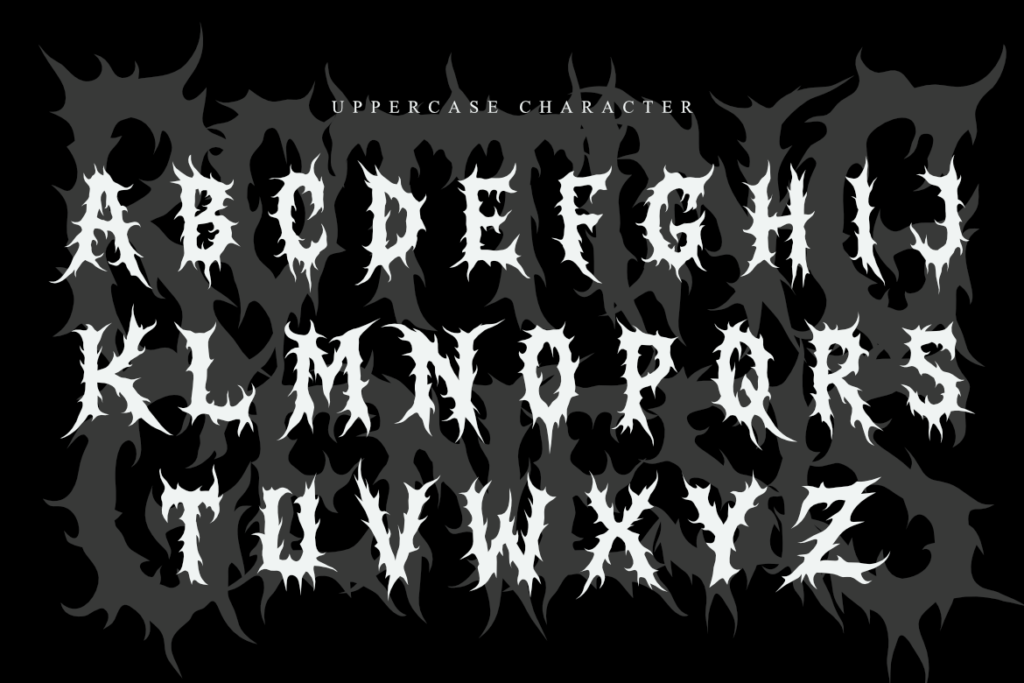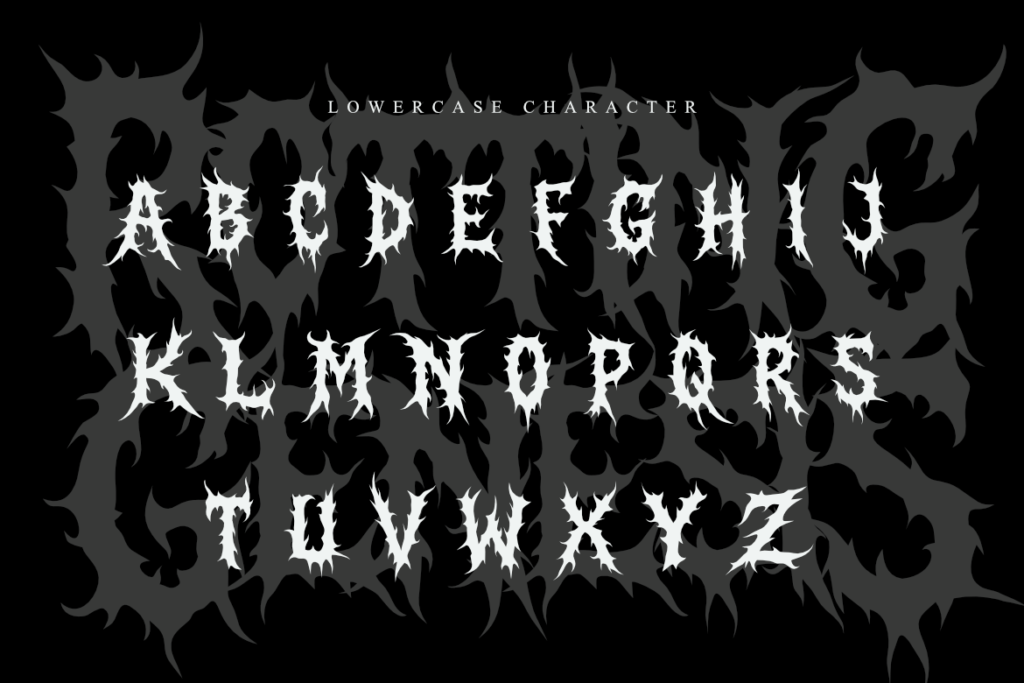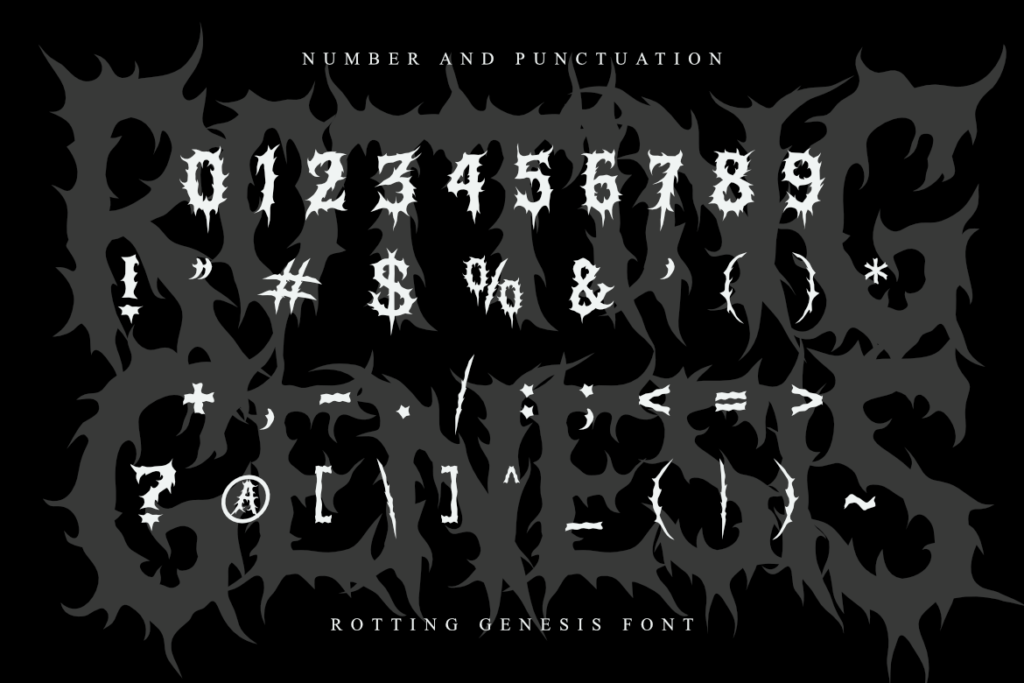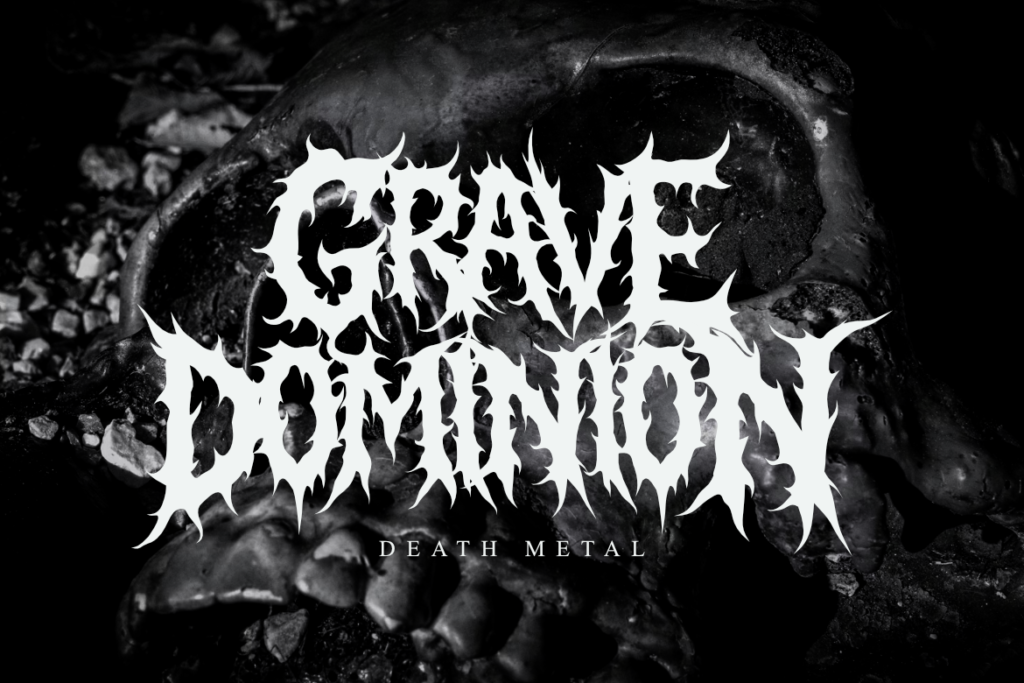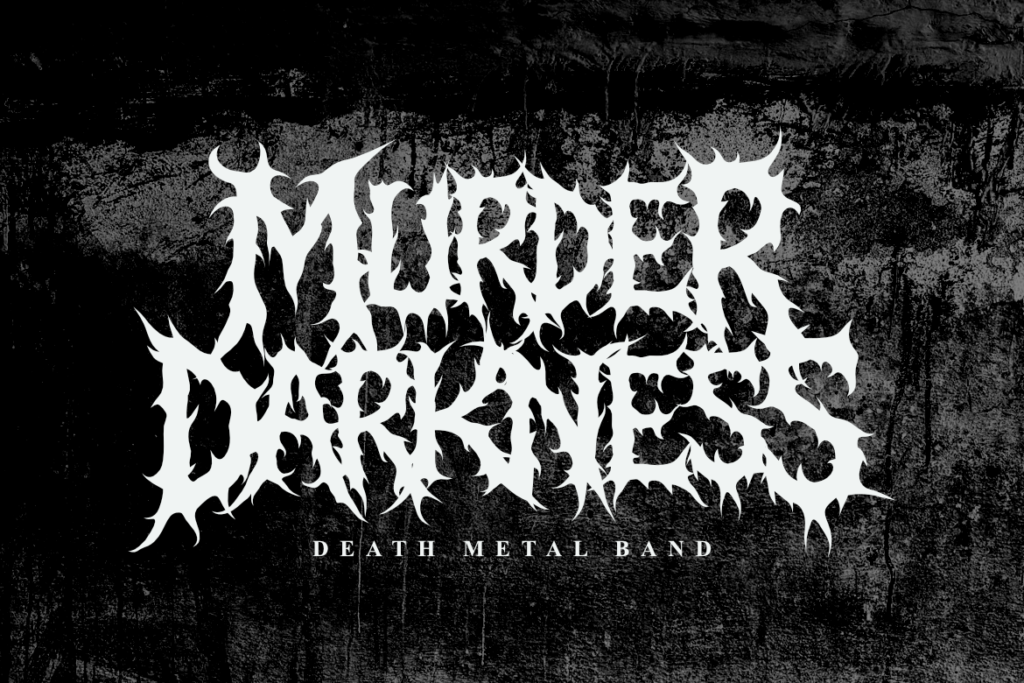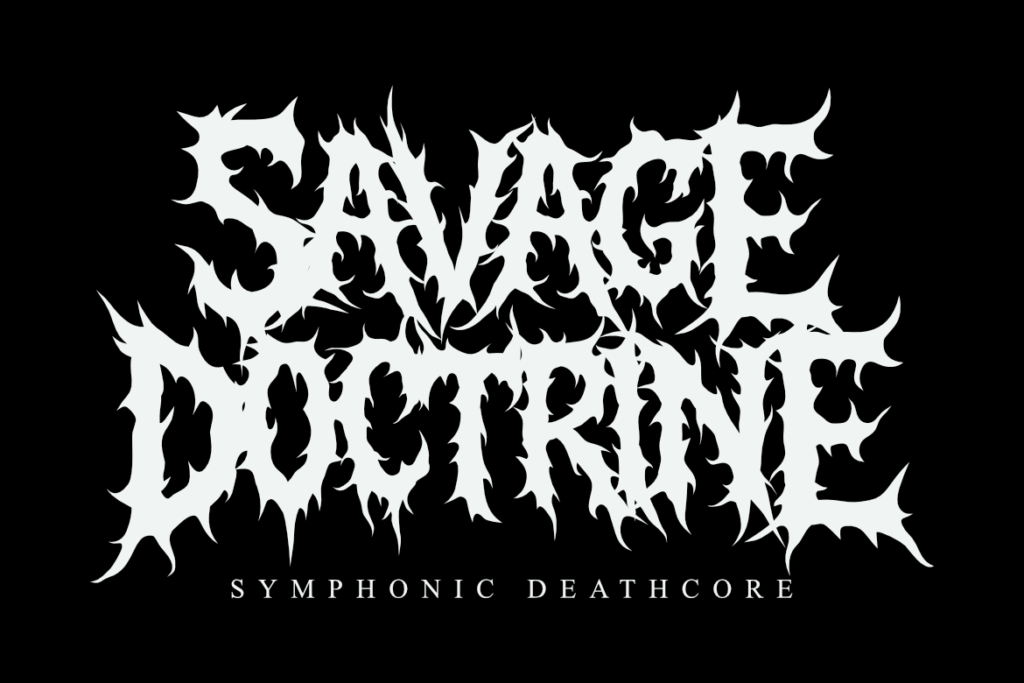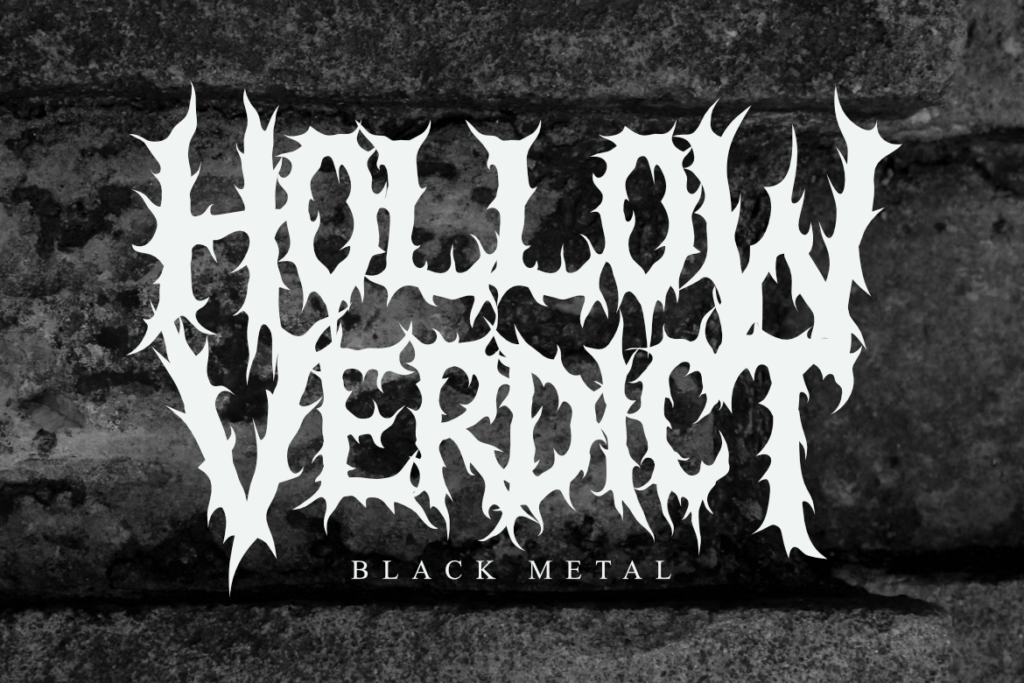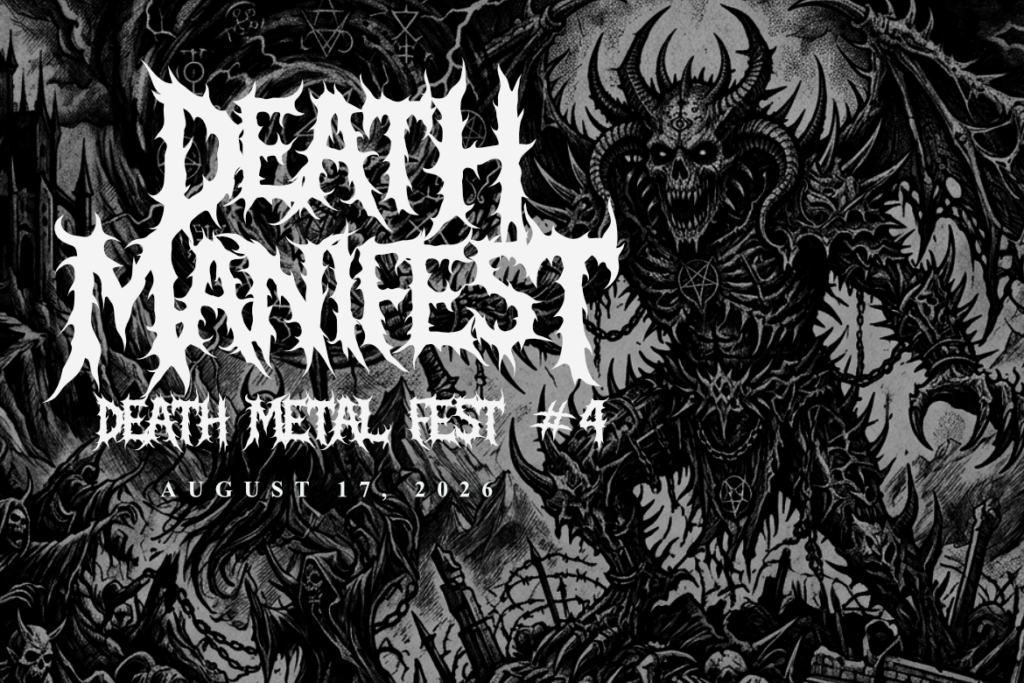
Display typeface · Latin
Rotting Genesis
Brutal Death Metal Font for Band Logos, Album Covers & Extreme Branding Introduce Rotting Genesis, a brutal display font designed to bring the raw, chaotic energy of underground metal culture to your high-octane creative projects. This typeface embodies the synergy between savage interlocking structures and aggressive, detailed “thorn” silhouettes. Its dense, interwoven letterforms provide a sense of visceral power and atmospheric darkness, maintaining a high-impact look while exuding a sophisticated sense of dark refinement. Whether you are crafting a band identity for an extreme metal startup, designing high-stakes gaming interfaces, or creating sleek horror-themed marketing materials, Rotting Genesis offers the versatility to elevate your visual storytelling. It is ideal for professional logos and editorial presentations that demand an edgy, uncompromising aesthetic. Inspired by the intricate complexity of dark fantasy and organic decay, Rotting Genesis offers an adaptable design that empowers you to communicate a polished and powerful modern aesthetic that leaves a lasting impression. Main Features: Brutal, Interlocking, and Savage Death Metal style. Interwoven geometric letterforms with detailed thorn edges. Optimized for high-impact branding and logos Bold display appearance for maximum visual power. What’s Included: Rotting Genesis.otf Rotting Genesis.ttf